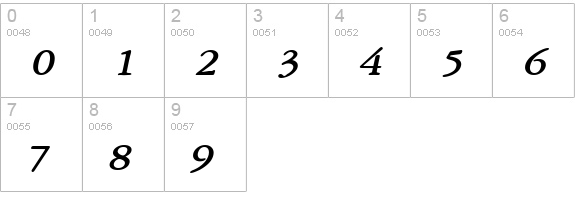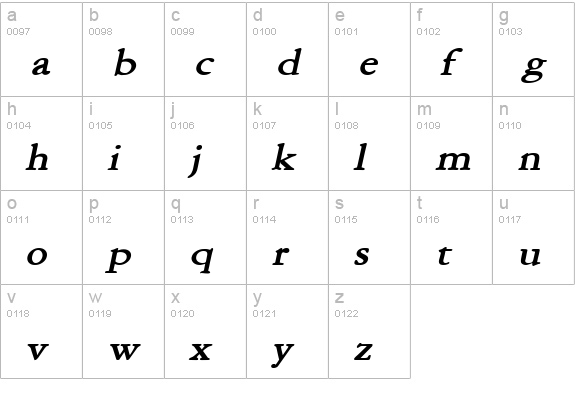
Amery Bold Italic Font Details
Amery Bold Italic is a strong, high-contrast, italic variant in the Amery typeface family \xE2\x80\x94 well suited to headlines, attention-grabbing titles, and strong calls-to-action.
The Amery Bold Italic font is a striking and dynamic typeface that exudes confidence and modernity. Its bold curves and sharp angles give it a strong presence, making it ideal for headlines, titles, and branding projects. The italicized style adds a touch of elegance and sophistication to any design. What sets the Amery Bold Italic font apart is not only its bold and italicized look but also its versatility. Whether you're designing a poster, logo, website, or any other creative project, this font will make a bold statement and leave a lasting impression. The best part? The Amery Bold Italic font is available for free download at FontsMarket.com. So go ahead and add this powerful and stylish font to your collection today!